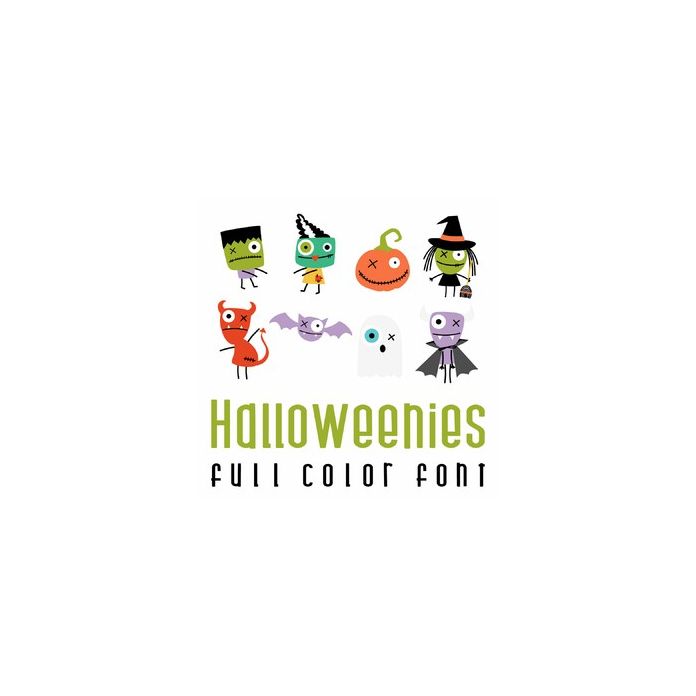
This adorable full color doodlebat features cute stick figure Halloween characters. Perfect for cards, crafts, gifts, decor, scrap book pages, planner stickers and more!